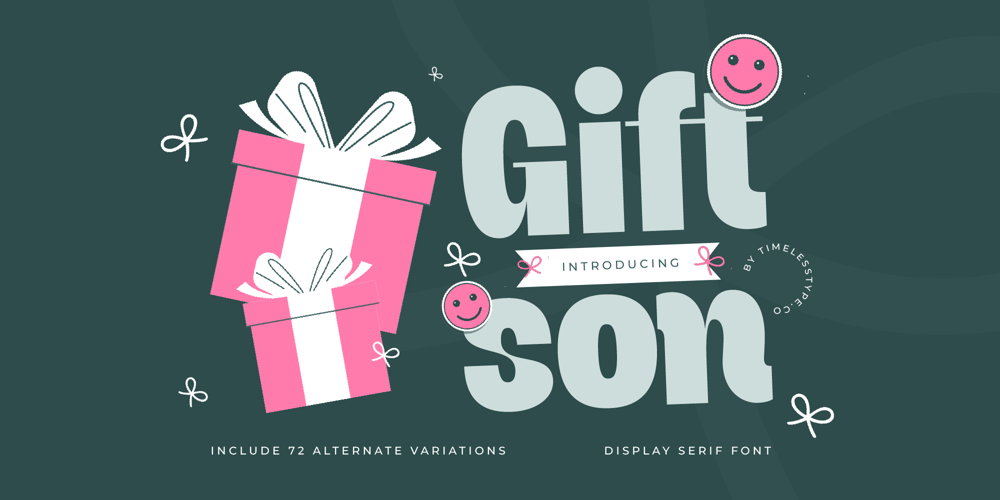
Giftson Font Family was designed by Heru Utama Putra and published by Timelesstype Studio. Giftson contains 2 styles and family package options. Giftson – Display Serif Font , from Timelesstype , Suitable for any projects such as: logos, branding projects, homeware designs, product packaging, mugs, quotes, posters, shopping bags, t-shirts, book covers, name card, invitation cards, greeting cards, label, photography, watermark, special events, and all your other luxury and beautiful projects that need a Luxury Serif taste.